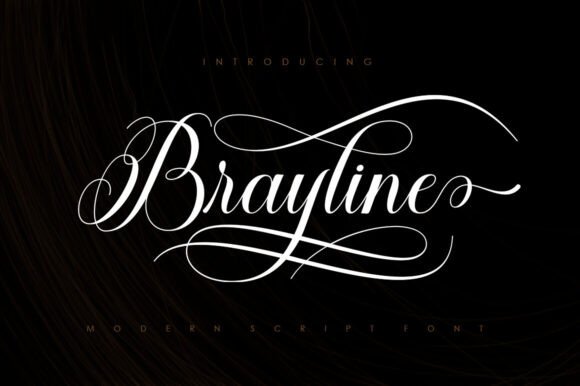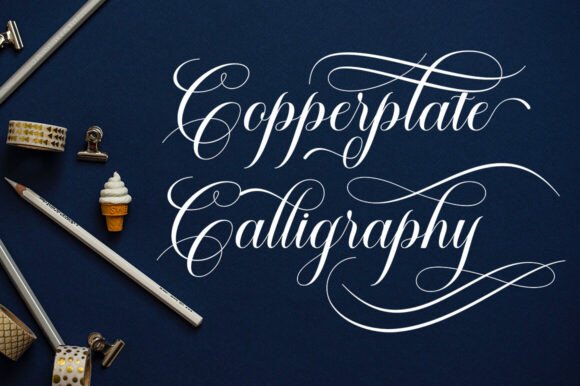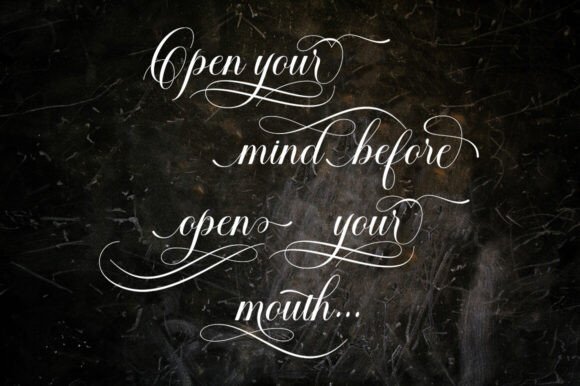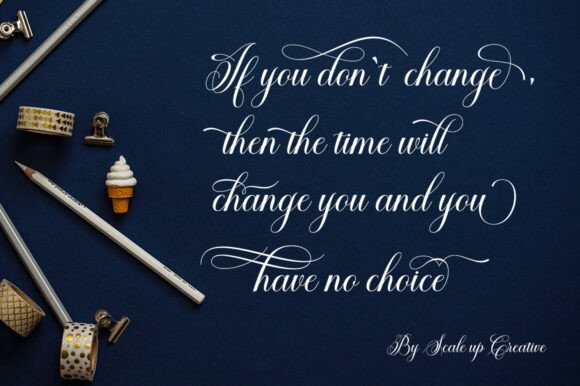
Brayline Font: Elegant Calligraphy Script for Wedding & Logo Design
About the Brayline Font
Get ready to be inspired by Brayline Font, a fresh and dynamic typeface for modern creators. Brayline is a calligraphy script font that comes with exquisite changeable characters, a kind of classic decorative copper script with a modern twist, designed with great detail to bring out stylish elegance.
Brayline appeals as a typeface that is smooth, clean, feminine, sensual, glamorous, simple, and very easy to read, a luxurious typeface. The classic style is very suitable to be applied in various formal forms such as invitations, labels, restaurant menus, logos, fashion, make-up, stationery, novels, magazines, books, greeting/wedding cards, packaging, labels, or any kind of advertising purposes.
Brayline Font Usage Examples
Brayline Font Example